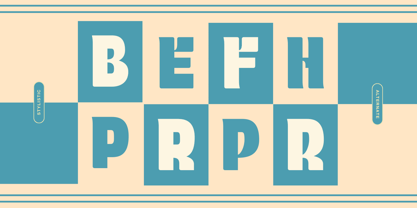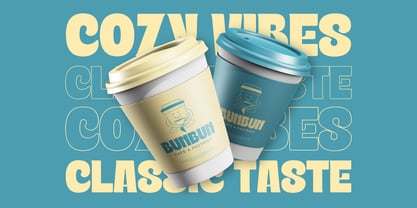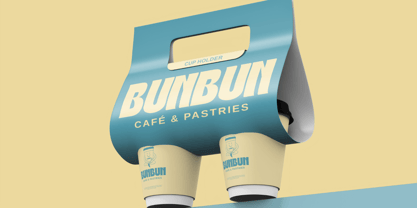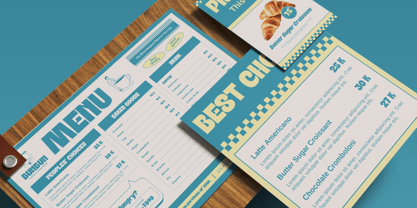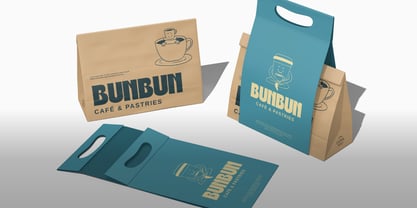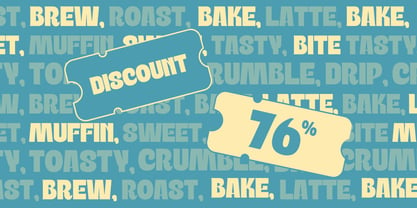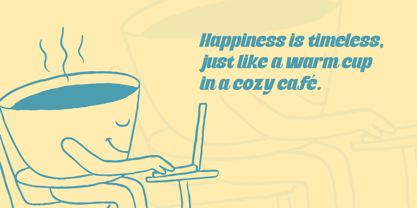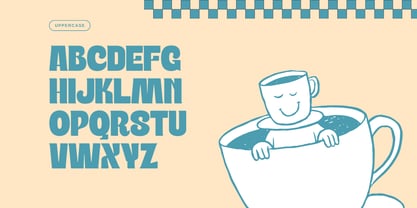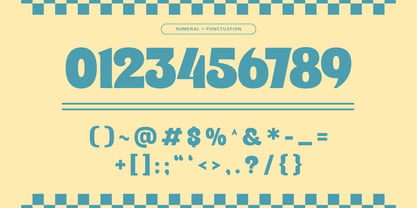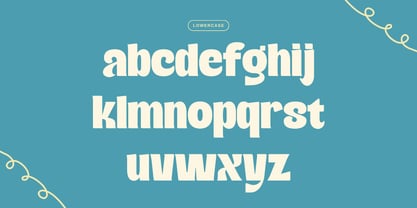
Food Brand
by Nirmana Visual
The Food Brand Font Family was designed by Sigit Dwipa and published by Nirmana Visual. Food Brand contains 2 styles and family package options. More about this family
Food Brand is a tasty and stylish font designed to elevate cafe, restaurant, and culinary promotions. With Regular and Italic styles, it brings a fresh, inviting look that’s perfect for menus, logos, packaging, posters, and branding projects. Its clean yet playful curves capture the essence of delicious dining, making your design feel appetising and memorable. Ideal for food businesses that want to stand out with charm and flavour.